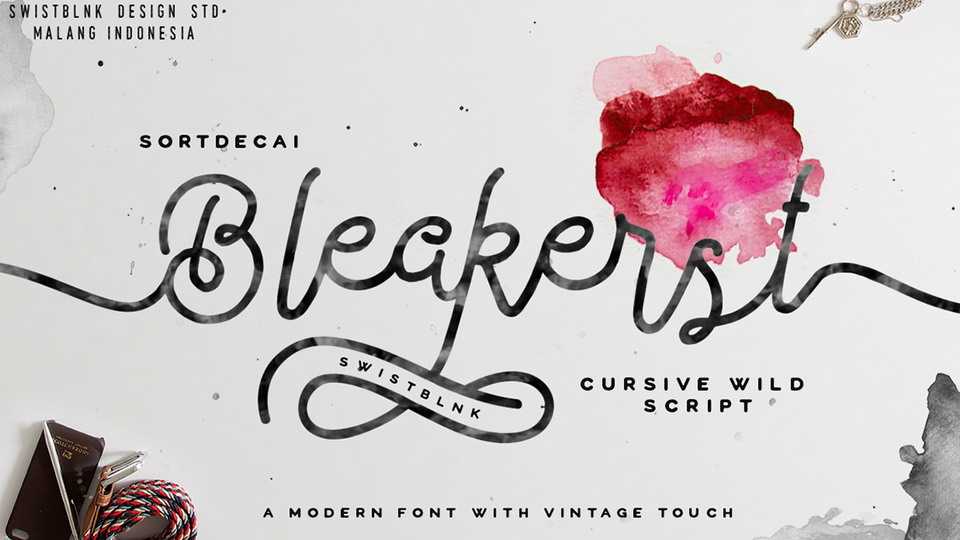
Download Bleakerst font, an amazing hand lettered modern vintage mono-line script display typefaces, which is combining the style of classic typography with an modern style.
Designer: Agga Swistblnk